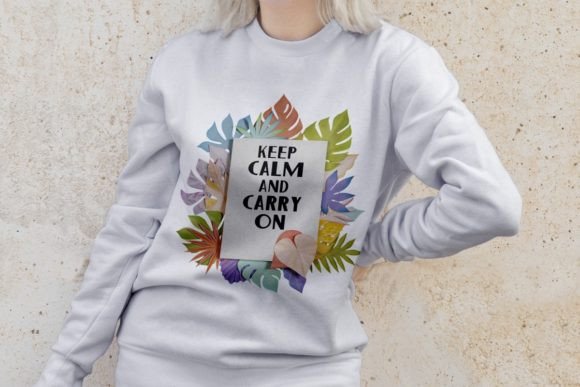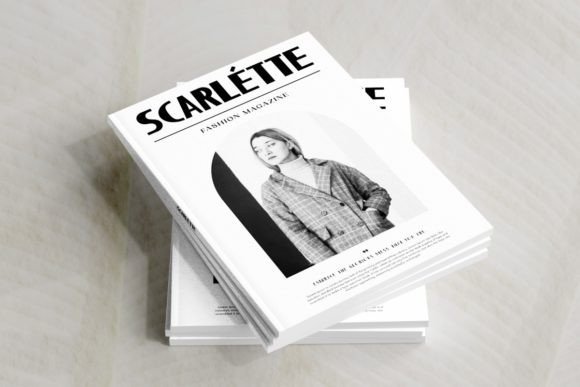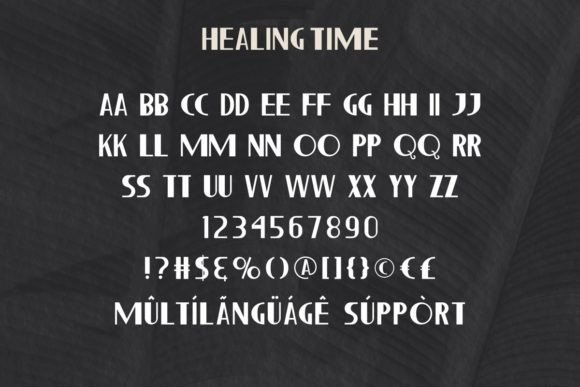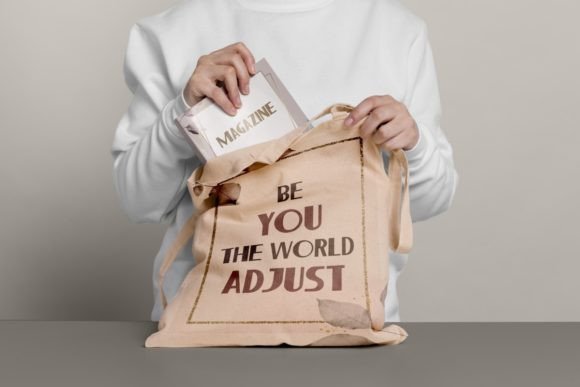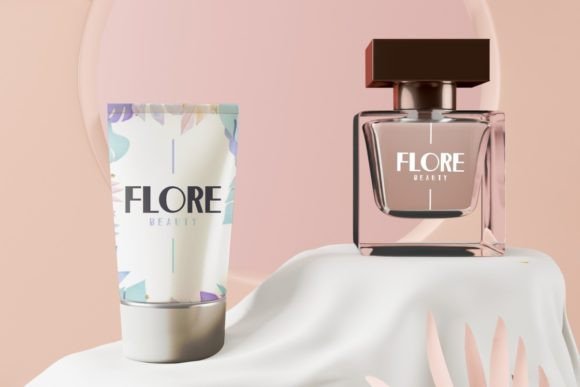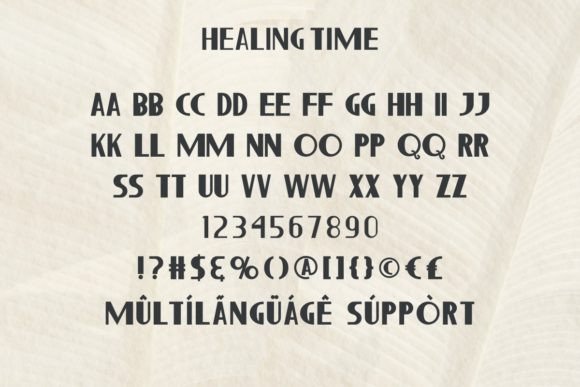
Introducing Healing Time Font: Elevate Your Designs with Elegance and Sophistication
In the world of design, typography plays a crucial role in conveying the message and aesthetic of a project. For designers and crafters seeking a font that embodies elegance, sophistication, and versatility, look no further than the Healing Time Font. This classy and stylish sans serif font is perfect for a wide range of applications, from fashion and beauty to lifestyle and editorial designs.
What Makes Healing Time Font Stand Out?
Healing Time Font is distinguished by its clean lines, modern aesthetic, and exceptional readability. Its sans serif design ensures a sleek and contemporary look that can seamlessly integrate into various design projects. Whether you’re working on a luxury brand’s logo, a fashion magazine’s headline, or an elegant craft project, this font provides the perfect blend of style and legibility.
One of the key advantages of the Healing Time Font is its incredible versatility. This font can adapt to different design needs and contexts, making it an invaluable asset for designers. Here are a few examples of how you can use Healing Time Font:
• Fashion and Beauty: Use Healing Time Font for logos, branding materials, and advertising to convey a sense of luxury and sophistication.
• Editorial and Magazine Designs: Enhance your editorial content with elegant headlines and body text that capture readers’ attention.
• Lifestyle and Wellness: Perfect for creating a serene and premium feel in designs related to health, wellness, and lifestyle.
• Crafting and DIY Projects: Add a touch of elegance to your crafting and DIY project designs, such as labels, cards, and posters.
Key Features of Healing Time Font
Healing Time Font comes with a range of features that make it an excellent choice for designers:
• Clean and Modern Design: Its sans serif design offers a clean and modern look.
• High Readability: Exceptional legibility ensures your message is conveyed clearly.
• Versatile: Suitable for a wide range of design projects.
• Elegant and Sophisticated: Adds a touch of class to any design.
Tips for Using Healing Time Font Effectively
To maximize the impact of Healing Time Font in your designs, consider the following tips:
• Pair with Complementary Fonts: For added visual interest, pair Healing Time Font with complementary fonts that enhance its elegance.
• Experiment with Sizes and Weights: Take advantage of the font’s versatility by experimenting with different sizes and weights to create visual hierarchy.
• Use for Headlines and Body Text: Its readability makes it suitable for both headlines and body text, providing consistency in your design.
Healing Time Font is a stylish and versatile sans serif font that can elevate your designs with its elegance and sophistication. Whether you’re a designer working on a high-end brand project or a crafter looking to add a touch of class to your DIY projects, Healing Time Font is an excellent choice. Its clean design, exceptional readability, and adaptability make it a valuable asset in your typography arsenal.
Discover the potential of Healing Time Font in your next project and experience how it can transform your designs with its classy and stylish appeal.